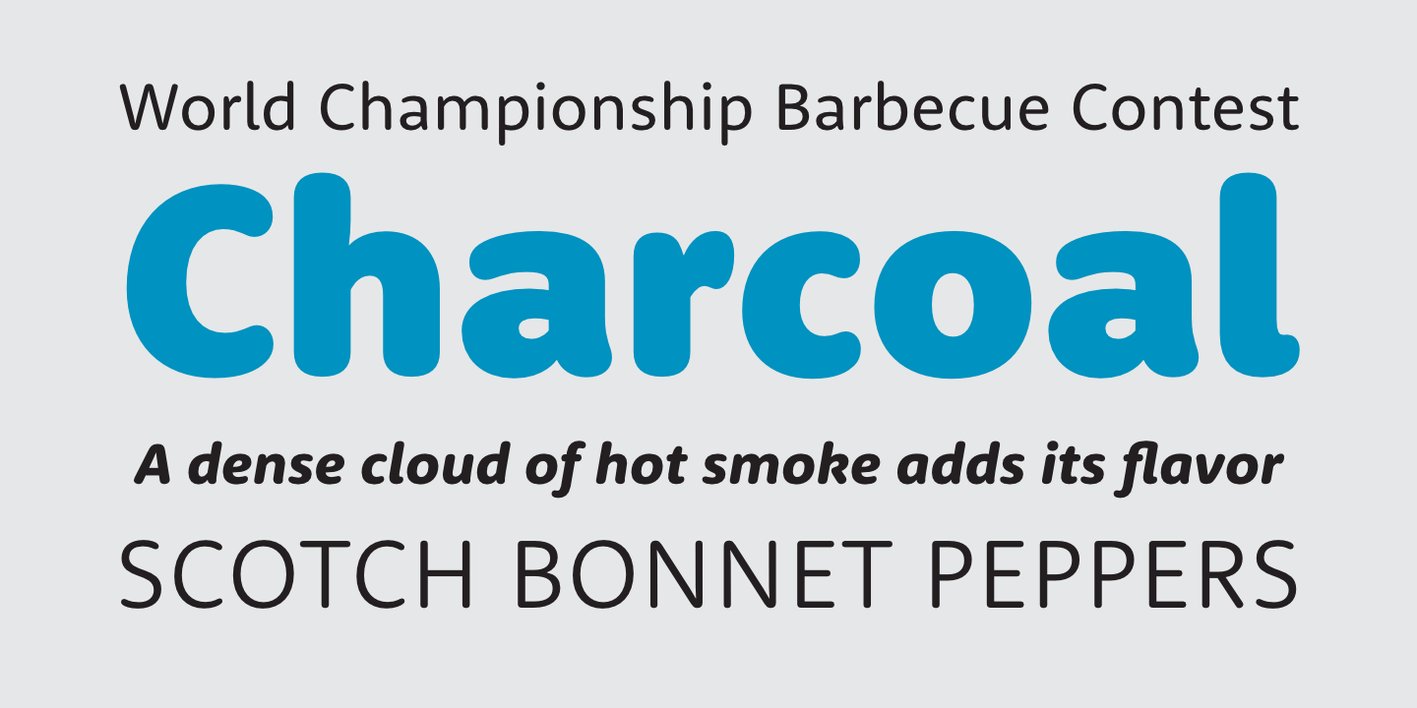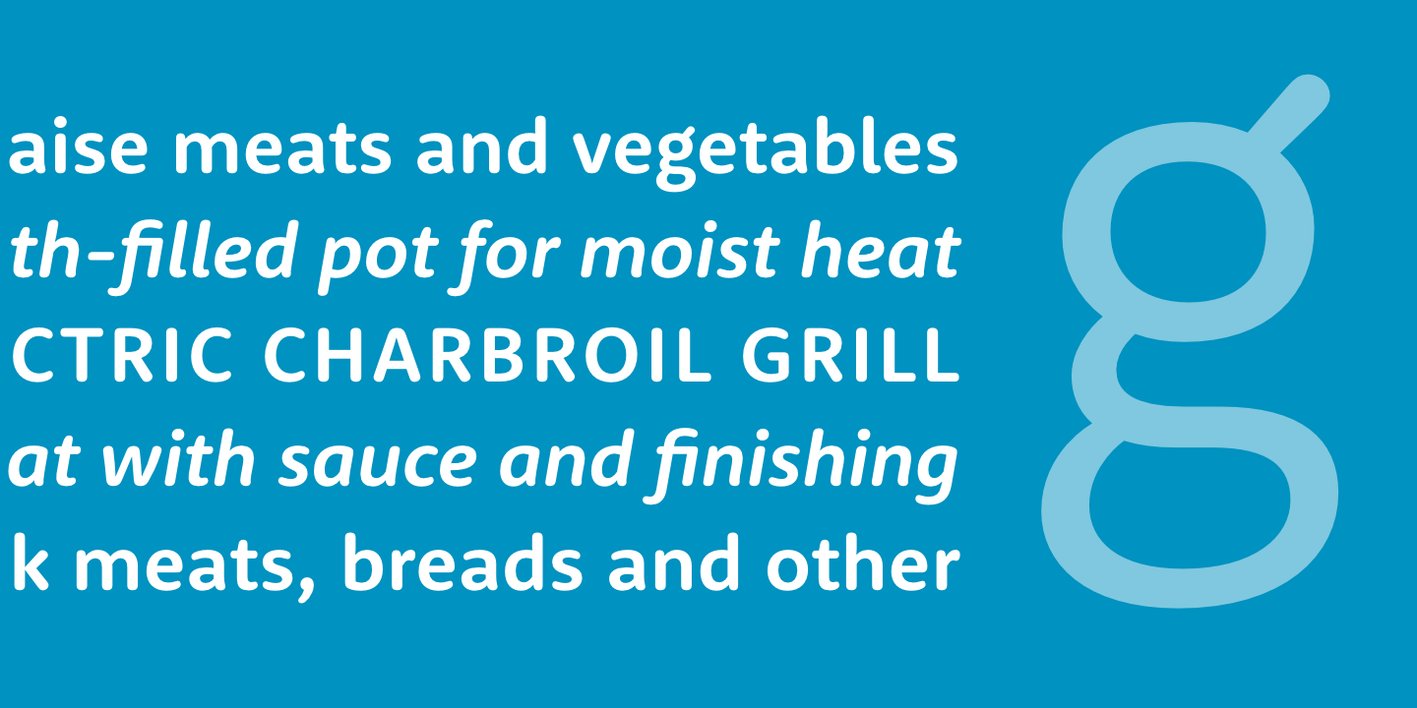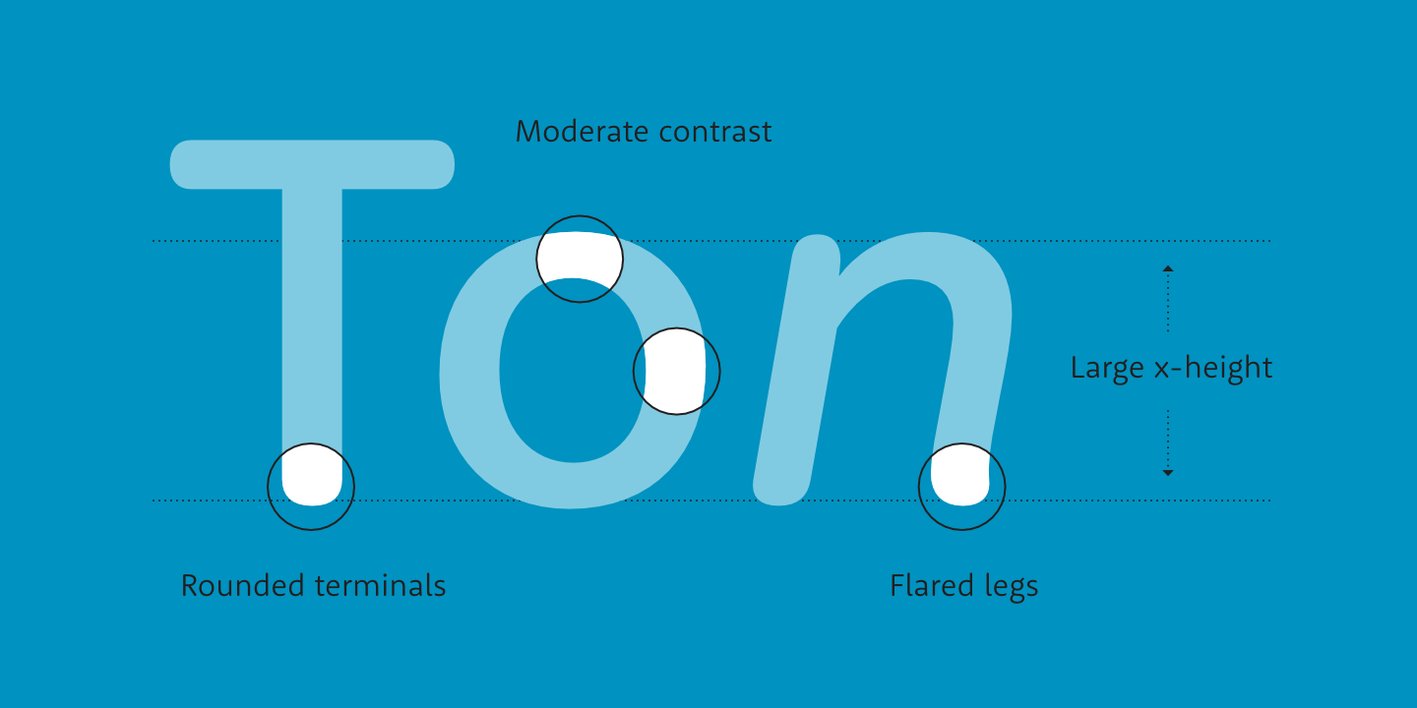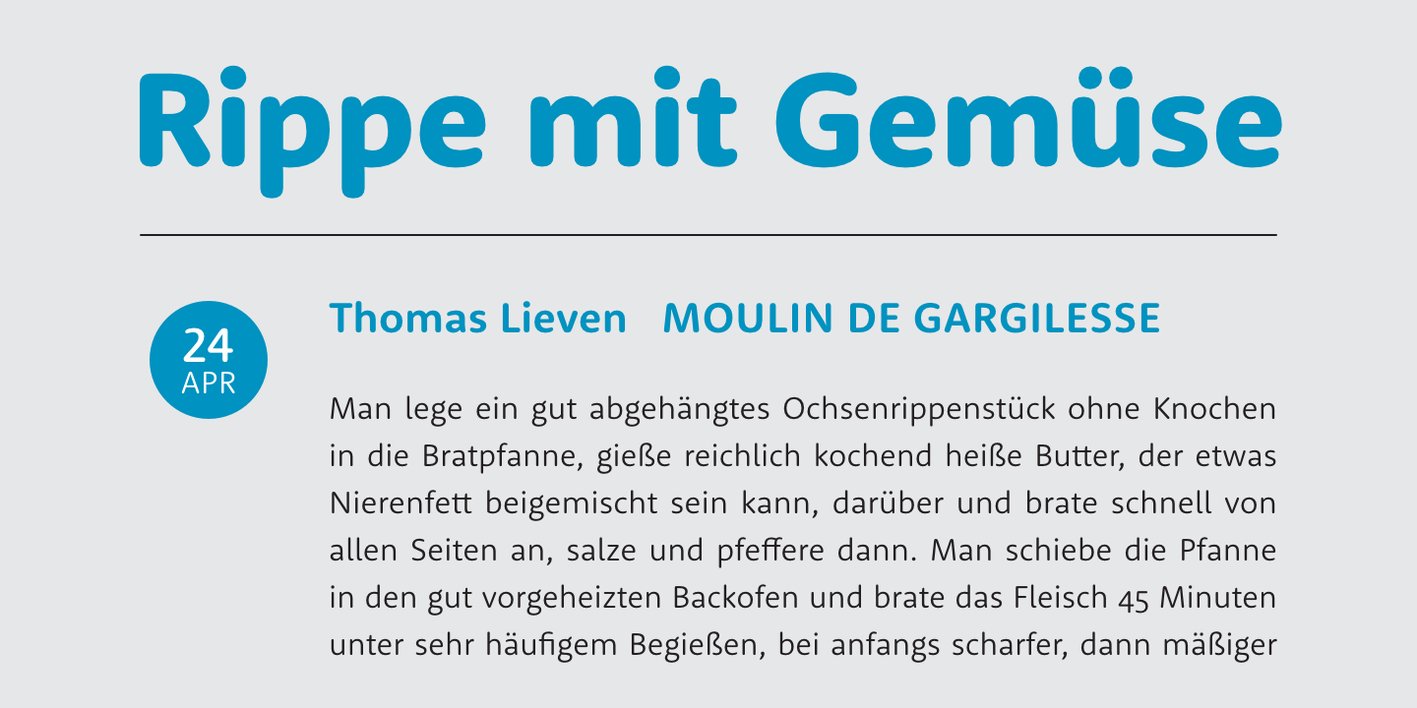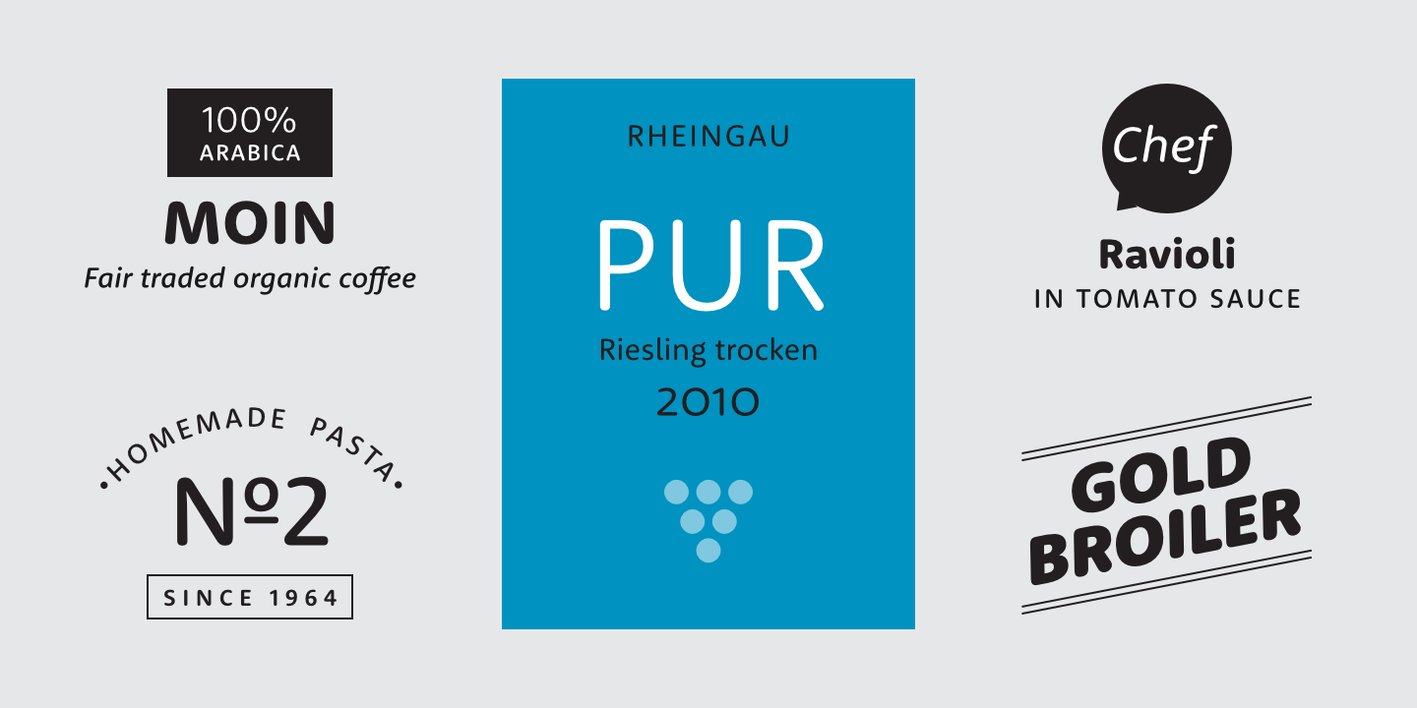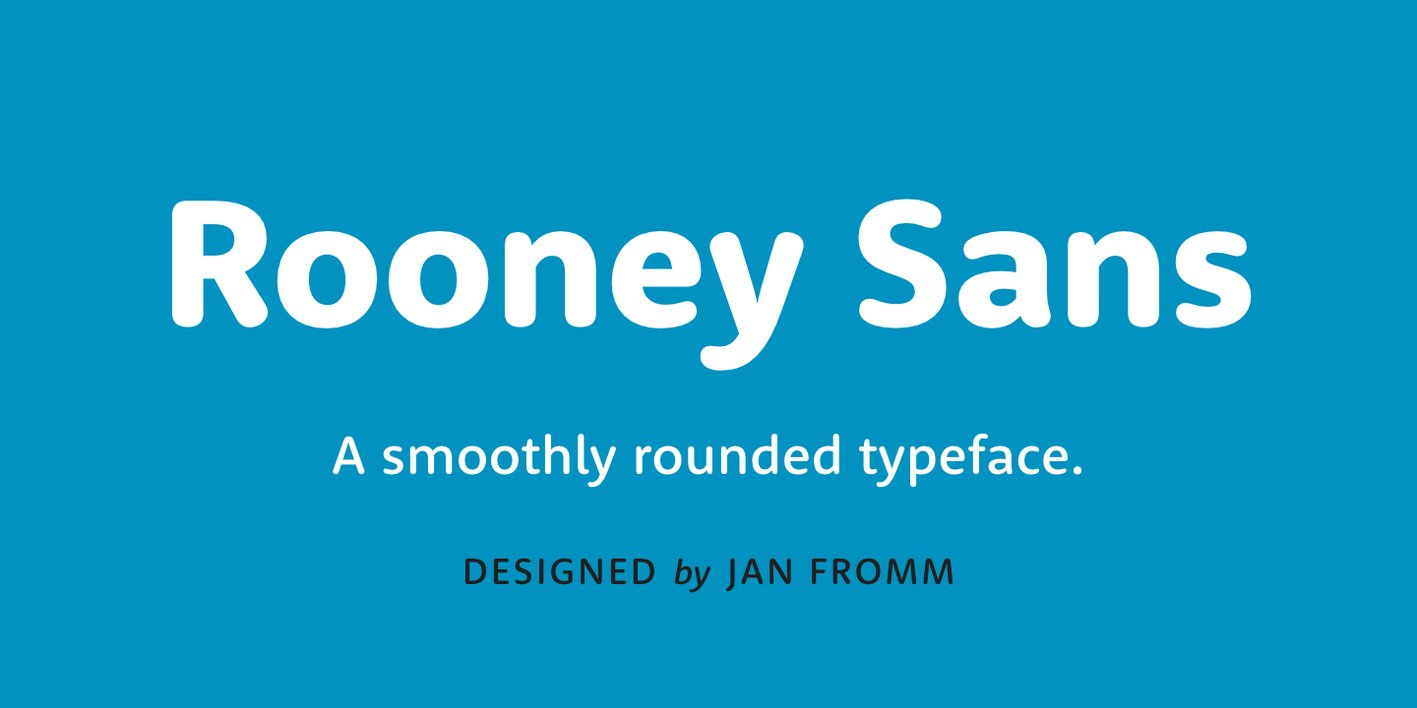
Rooney Sans Font
RooneySans is a humanist sans-serif typeface, and the latest addition to the Rooney family. It shares the same attributes as its seriffed companion – softly rounded terminals and a moderate contrast, thoughtfully applied to classical sans-serif proportions. Although RooneySans was developed as a stand-alone typeface family, it combines well with Rooney since both typefaces share the same stem weights and an equal gray value. RooneySans is suitable for any task in branding and packaging design and gives long texts a warm and inviting feel. All six weights from Light to Black come with matching real italics.